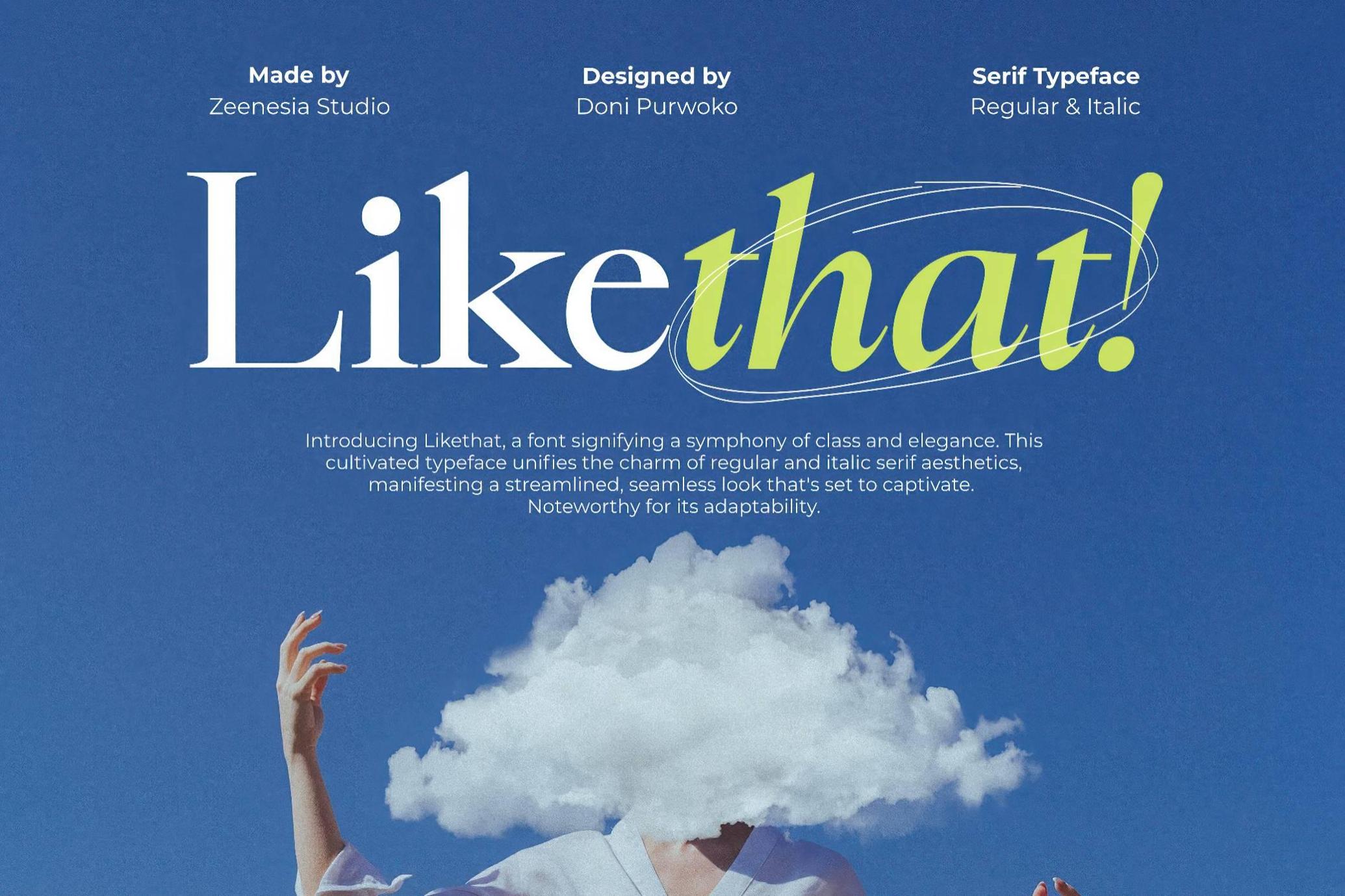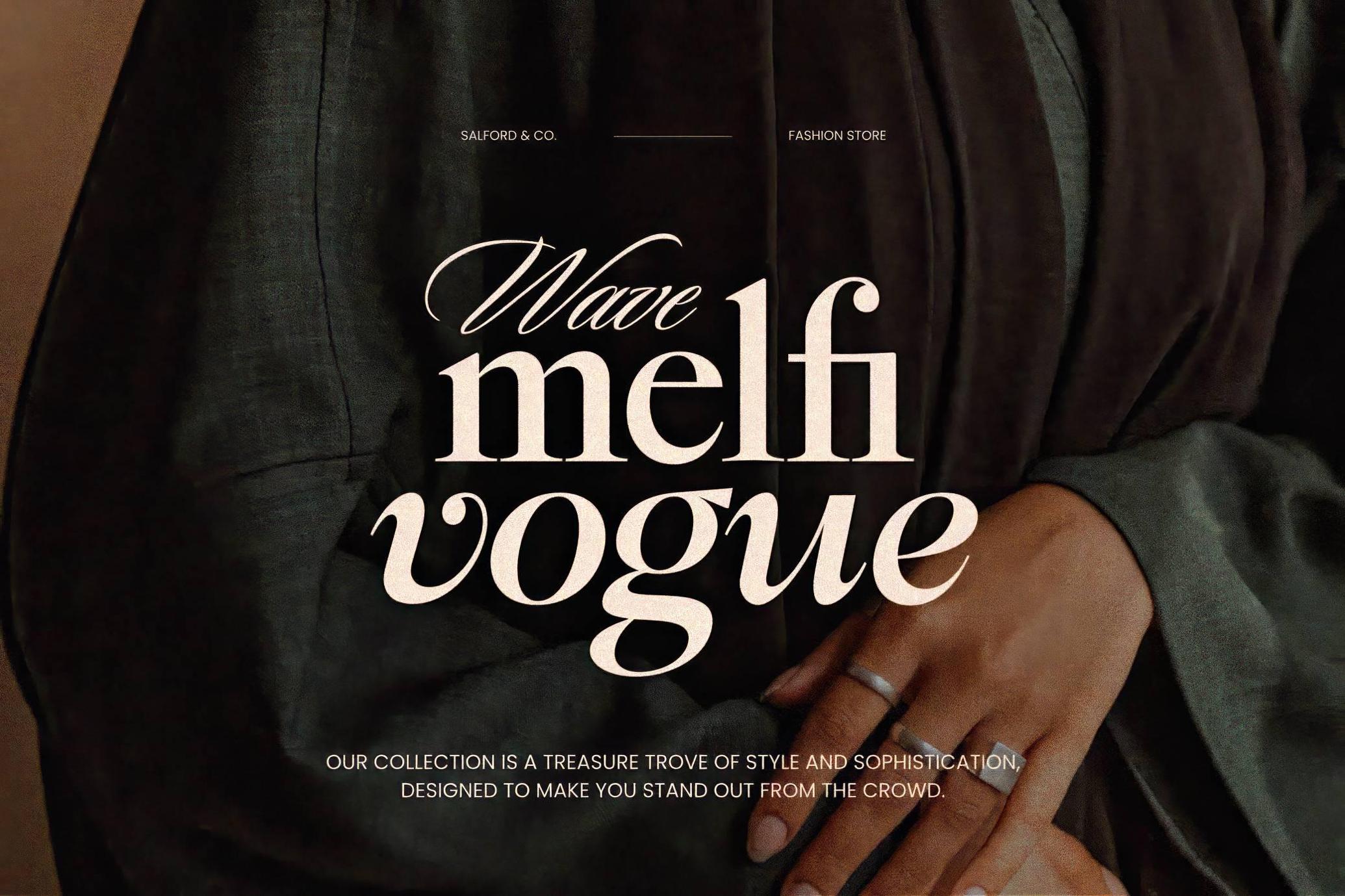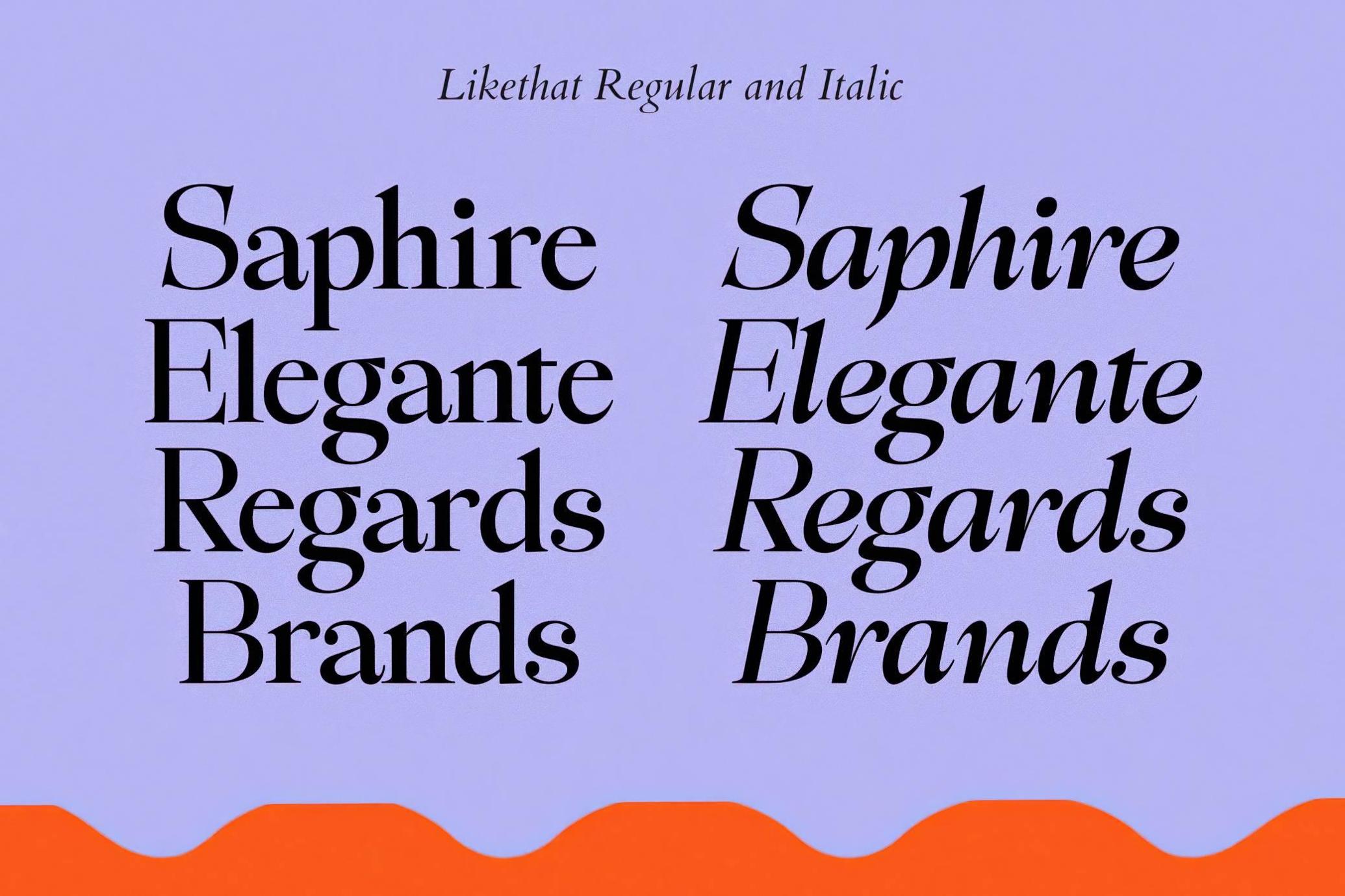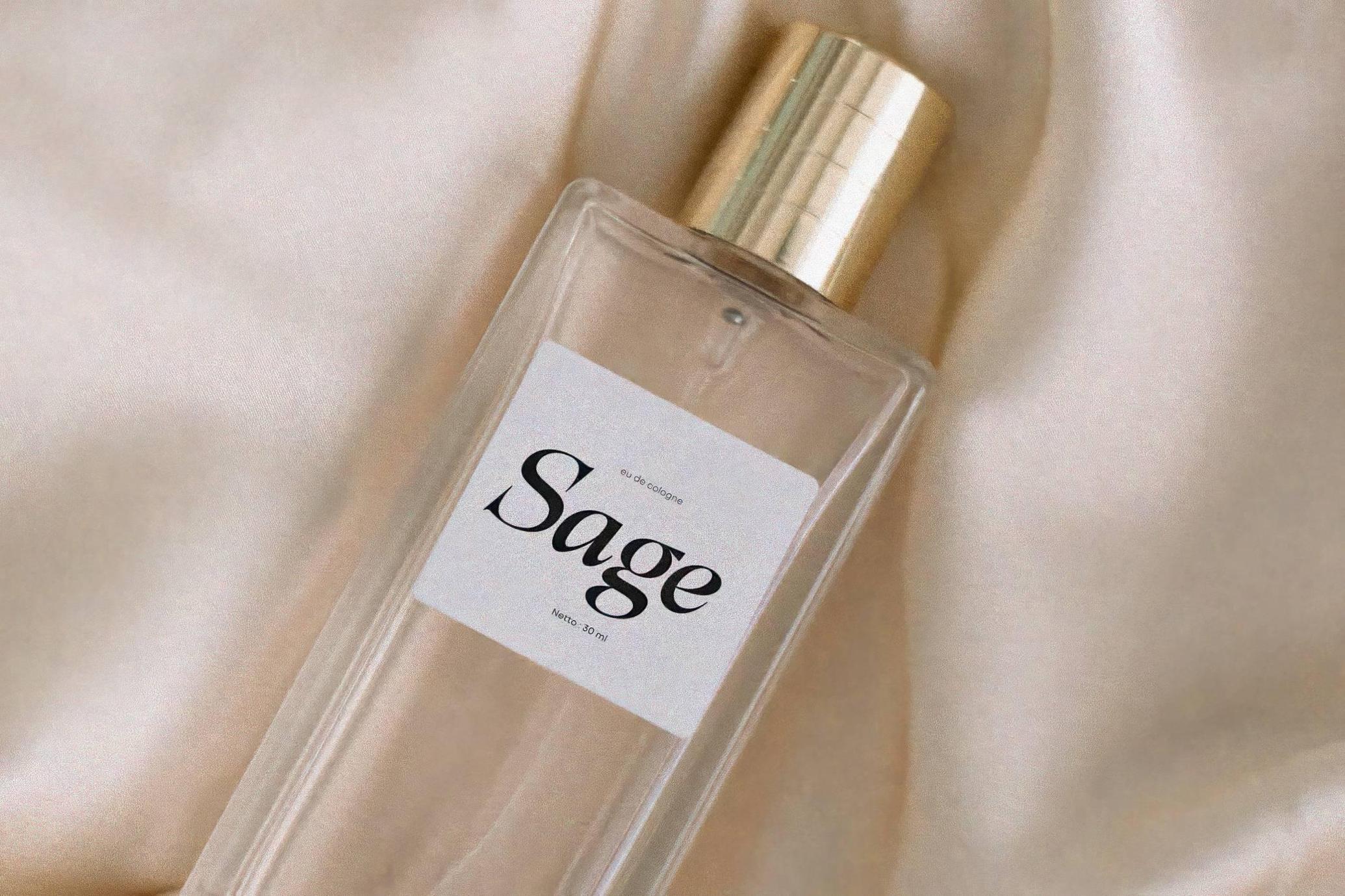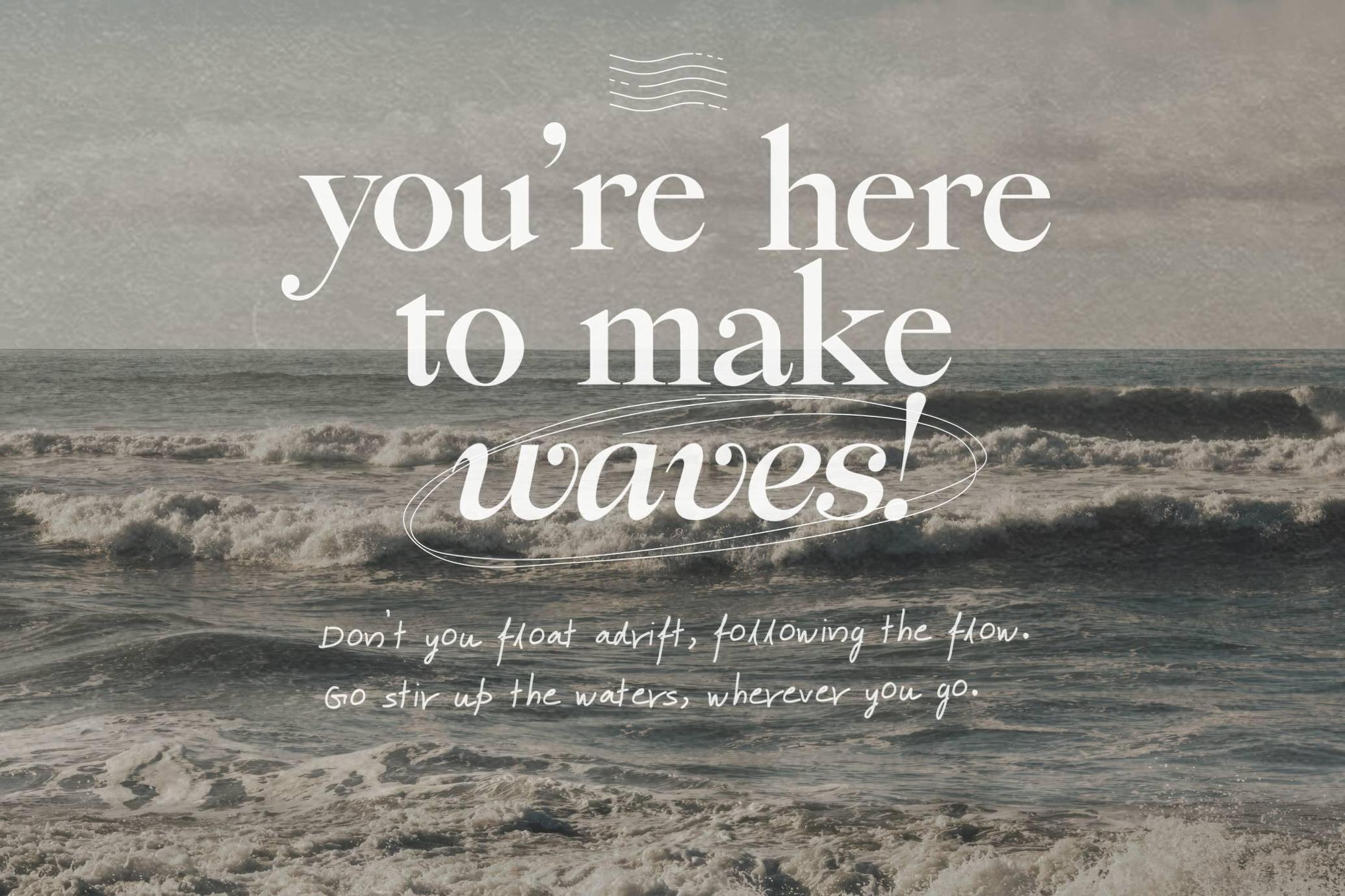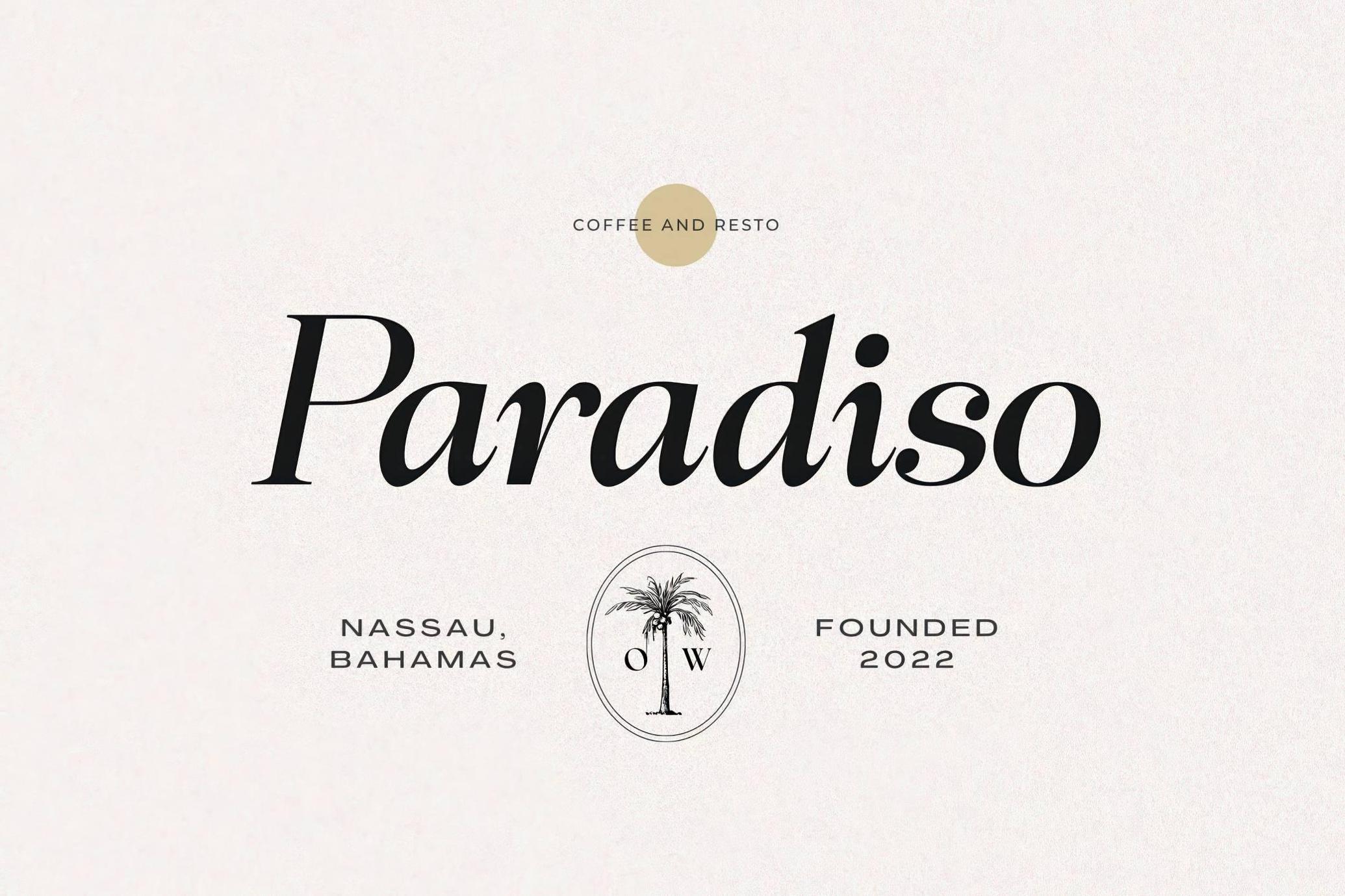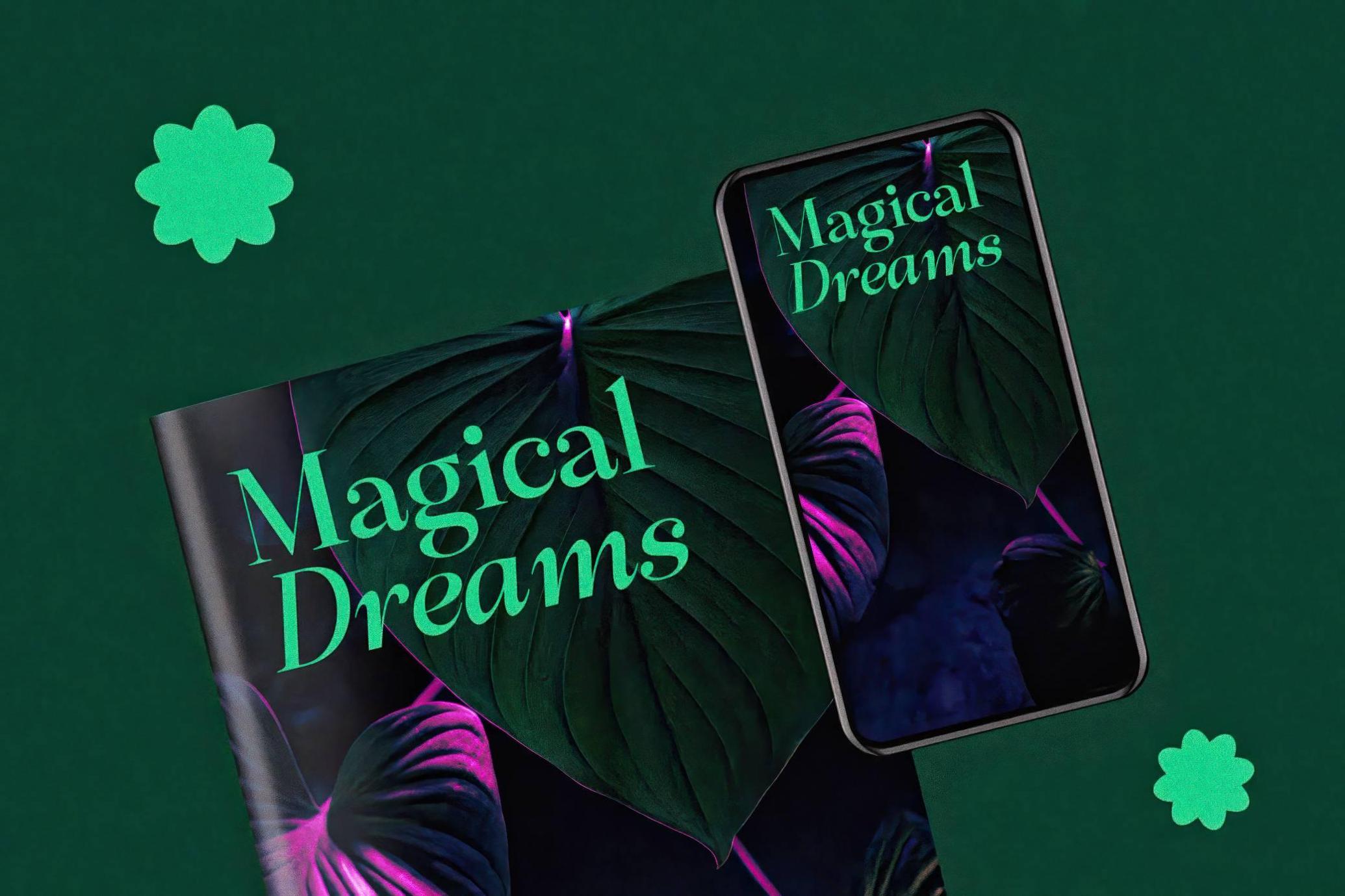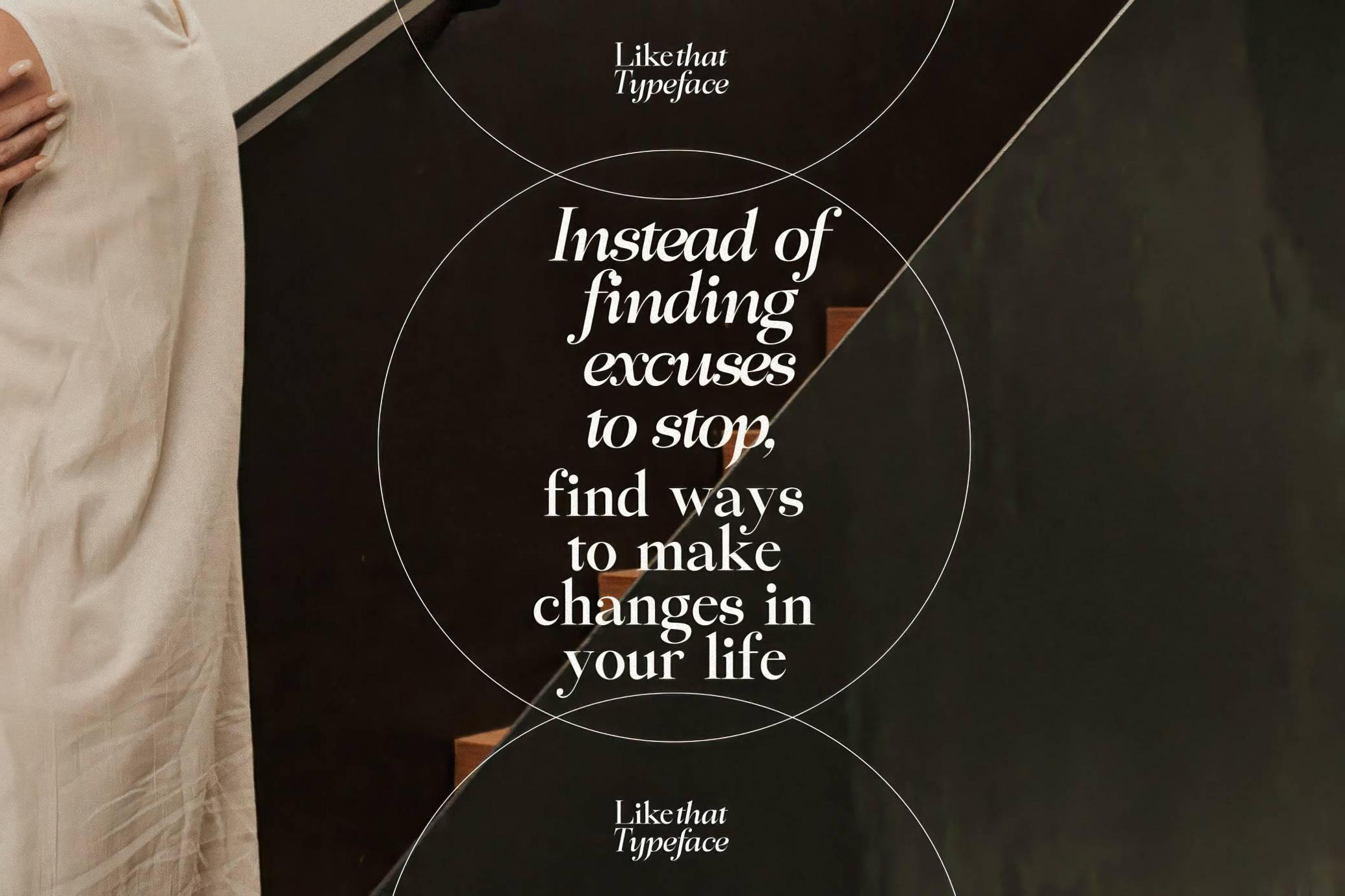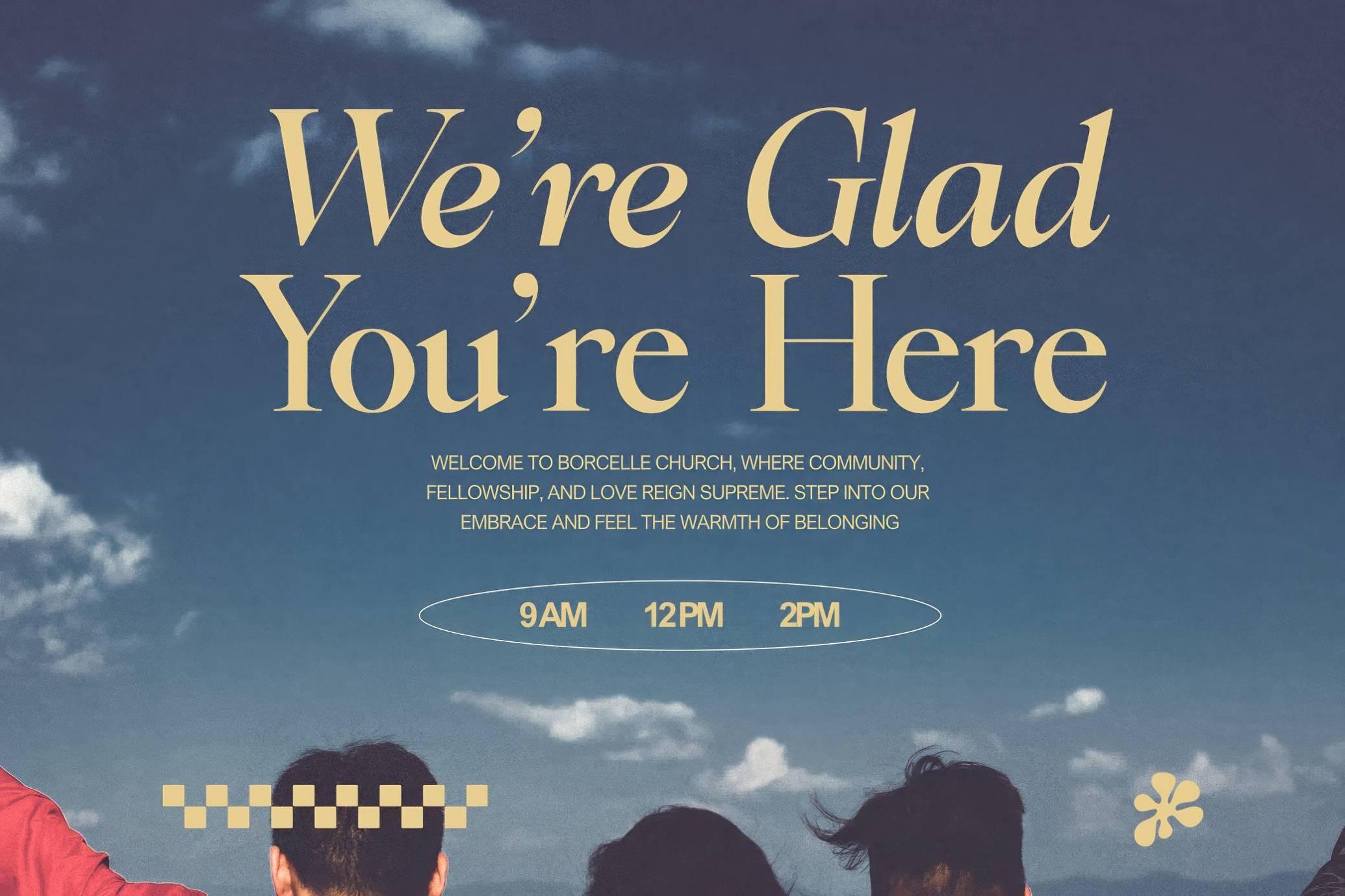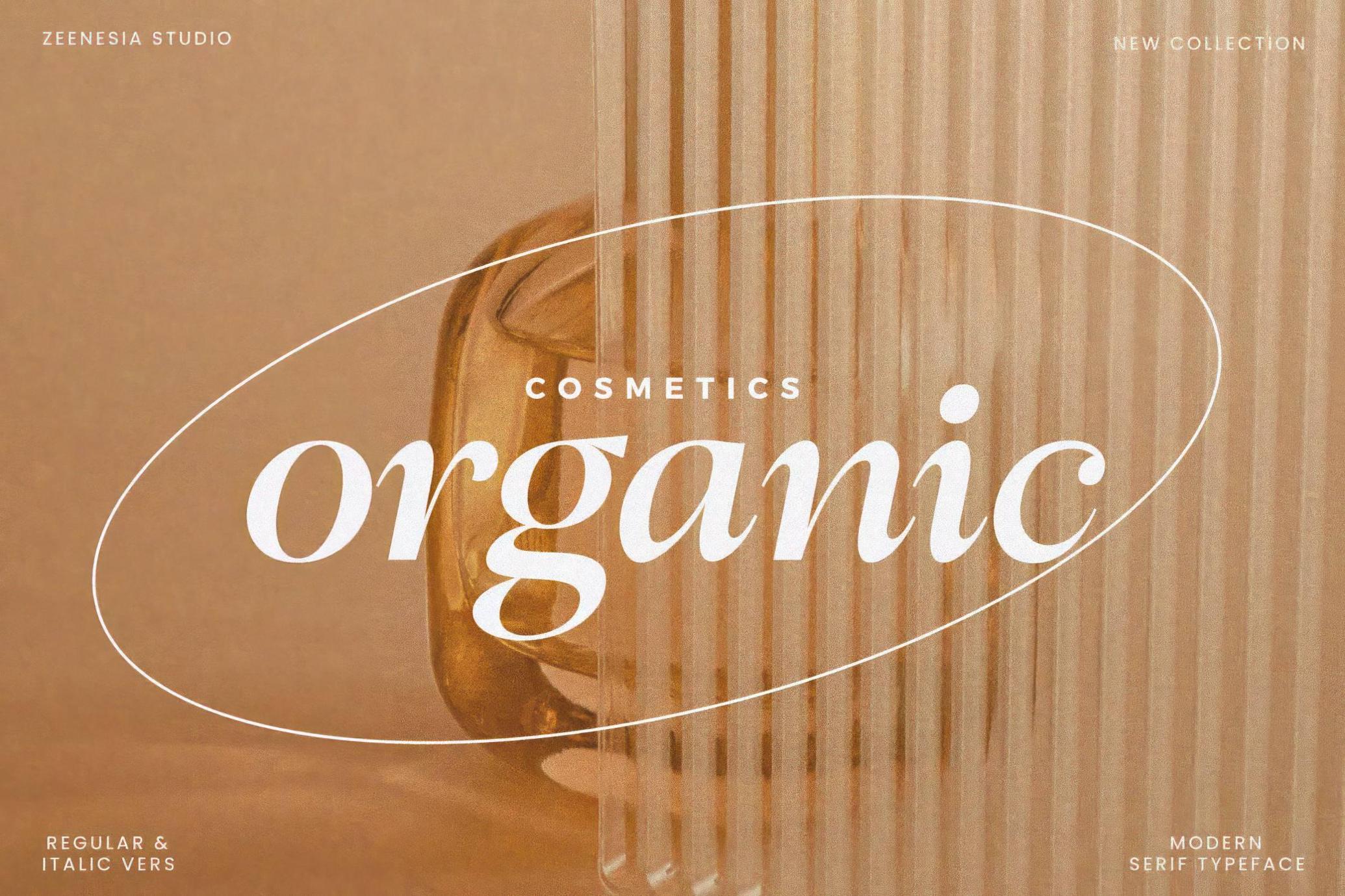
Likethat Font
Likethat confidently blends classic and contemporary serif styling. Its italic variant relies on high drama, offering an alternative to the stately regular cut. This duality makes Likethat suited for editorial refinement and playful display. Use it across branding suites, fashion lookbooks, magazine spreads, restaurant menus, book covers, high-end packaging, digital banners, gallery posters, and typographic logos.